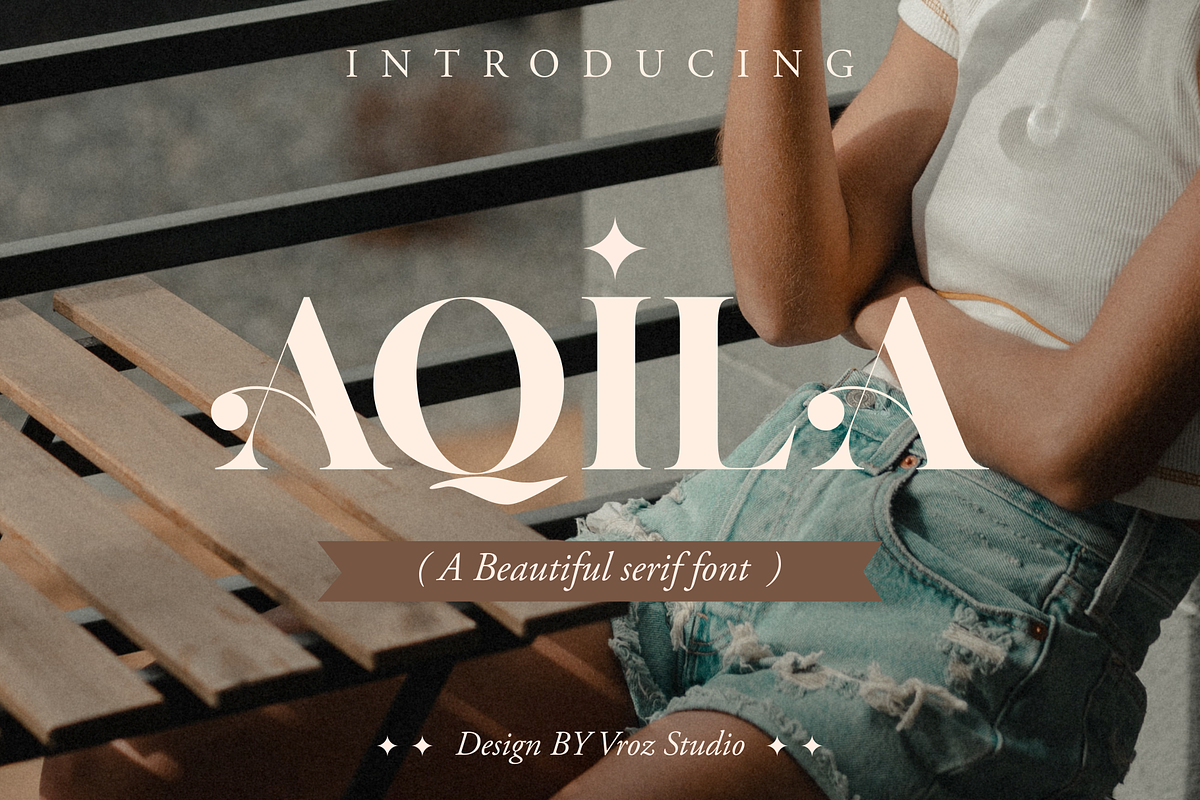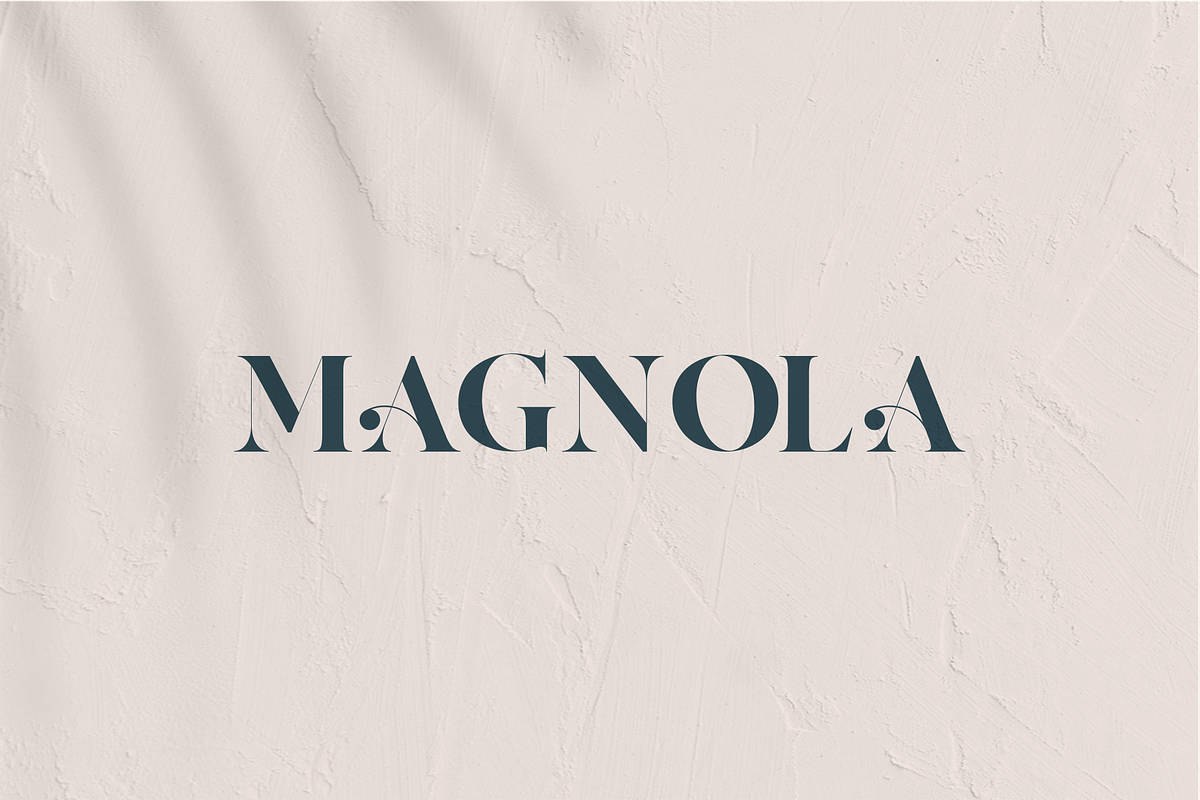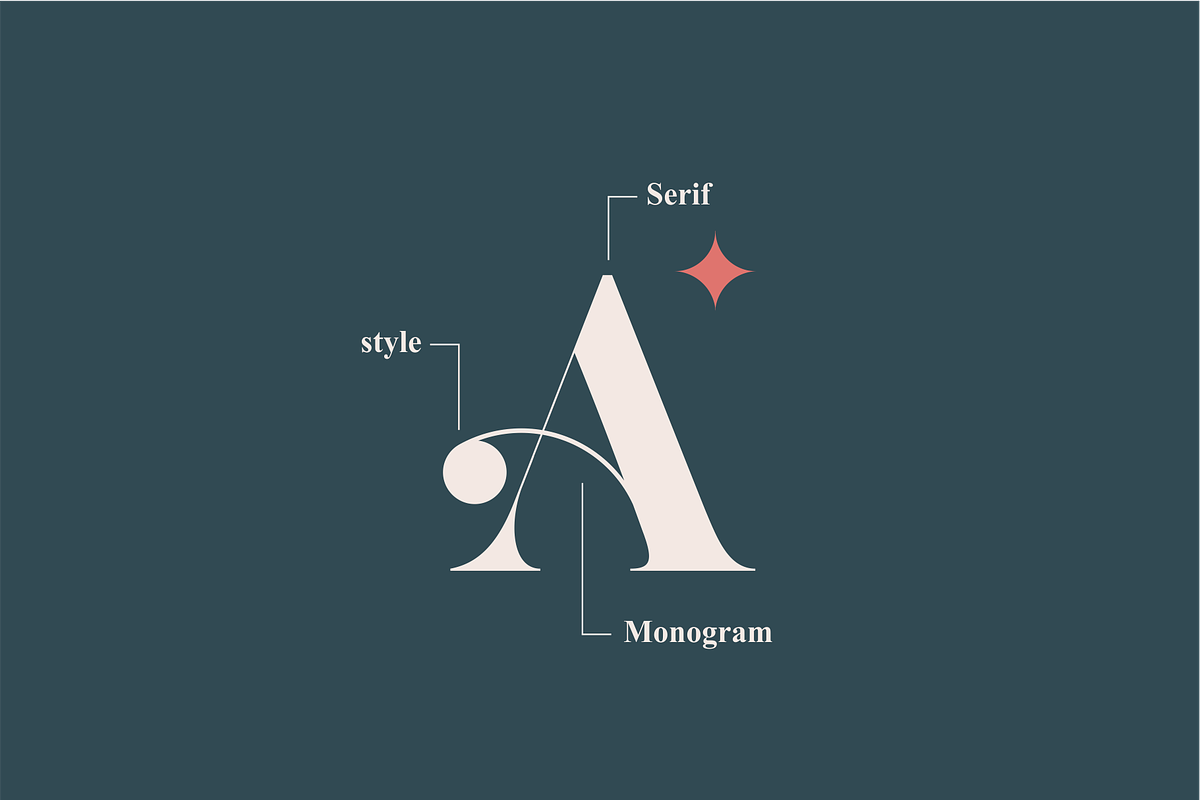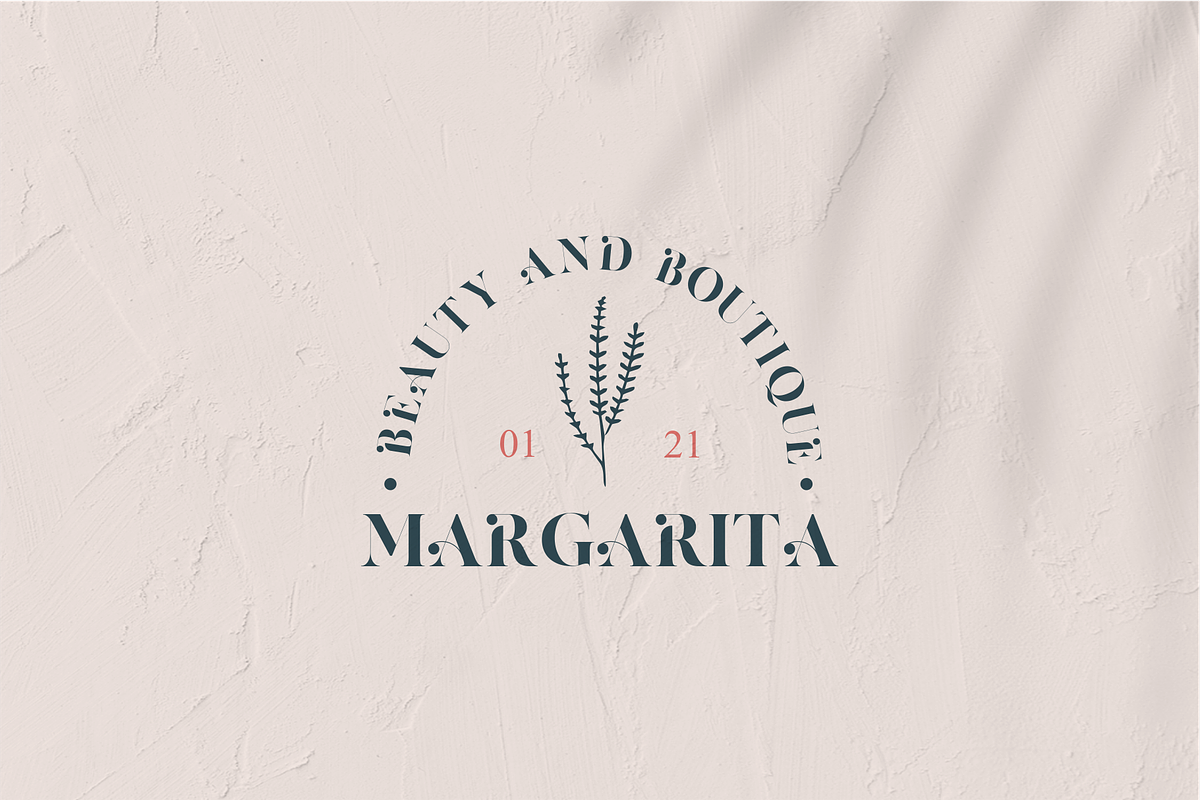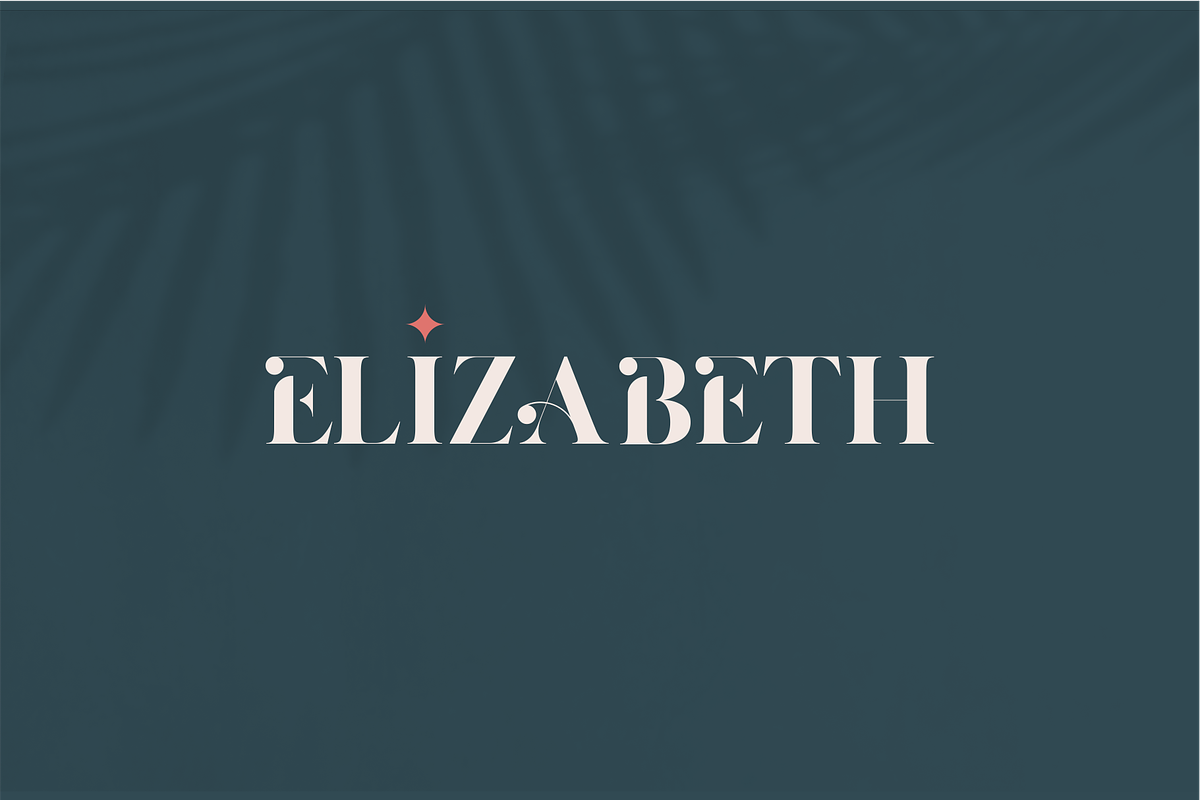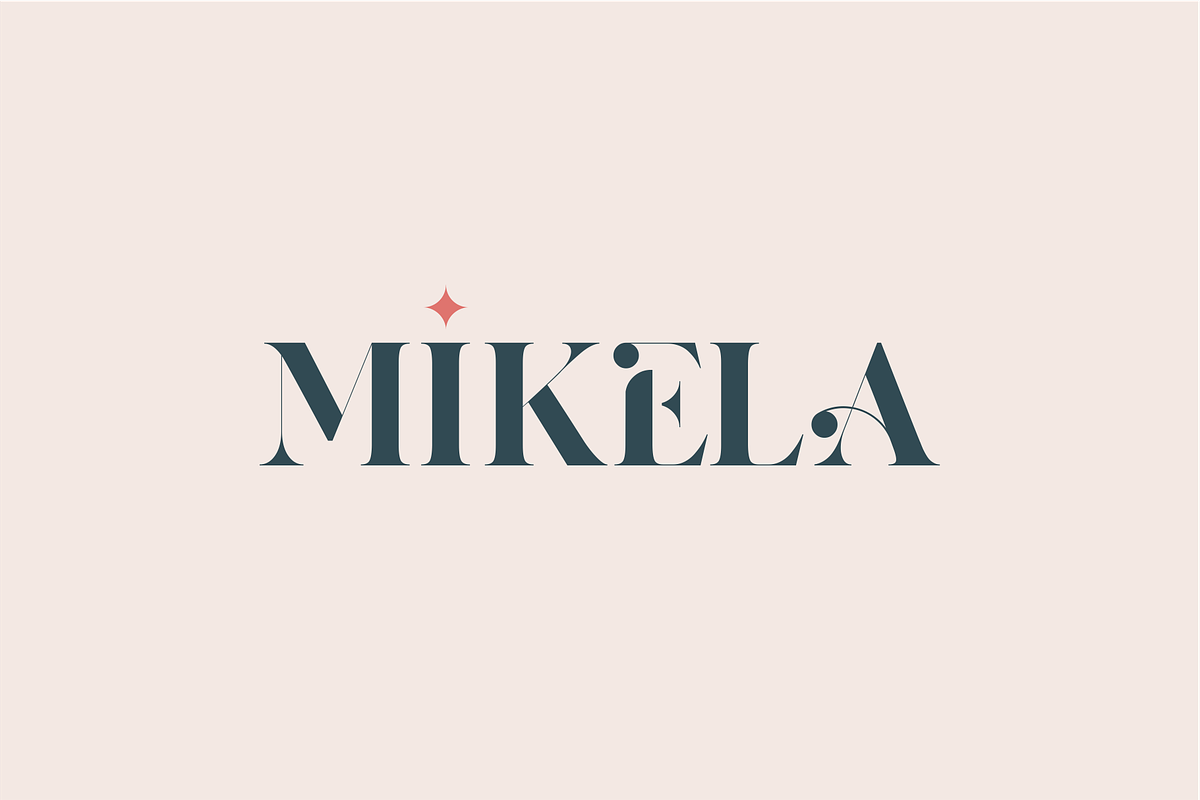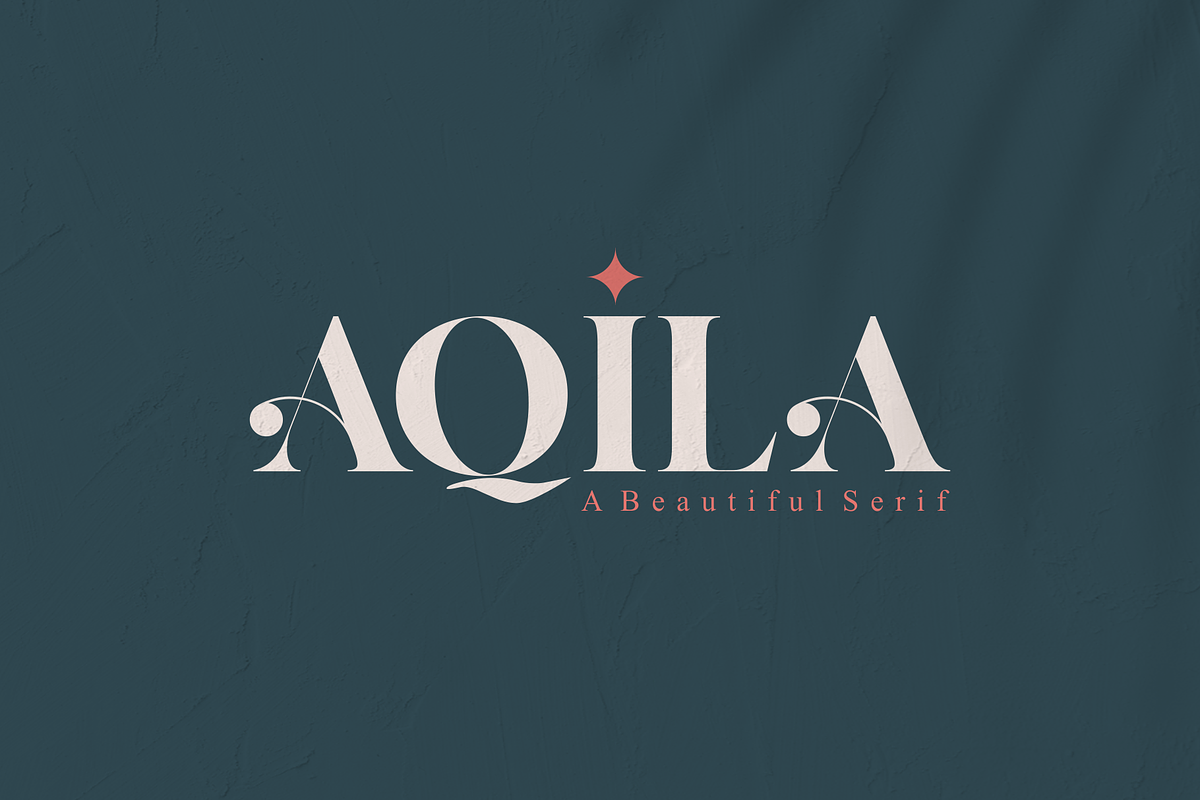
AQILA - A Beautiful Serif
AQILA is a beautiful serif font
AQILA will perfect for many project: fashion, magazines, logo, branding, photography, invitations, wedding invitation, quotes, blog header, poster, advertisements, postcard, book, websites, title etc.